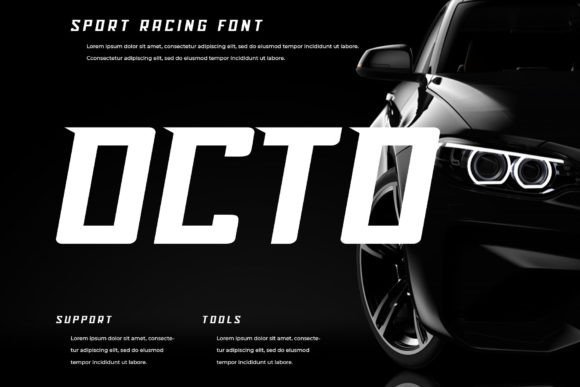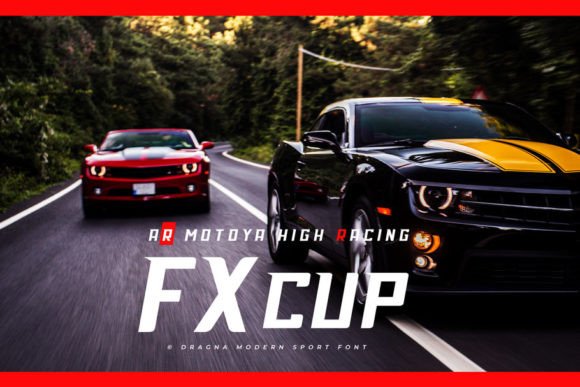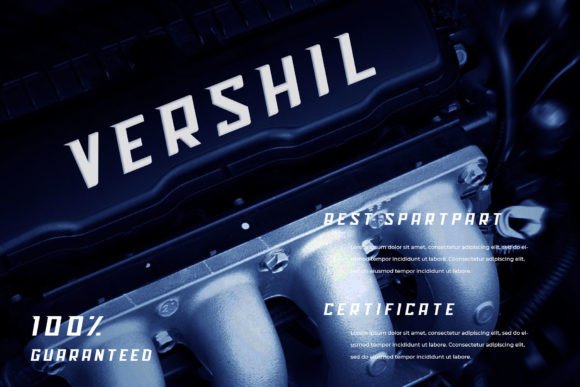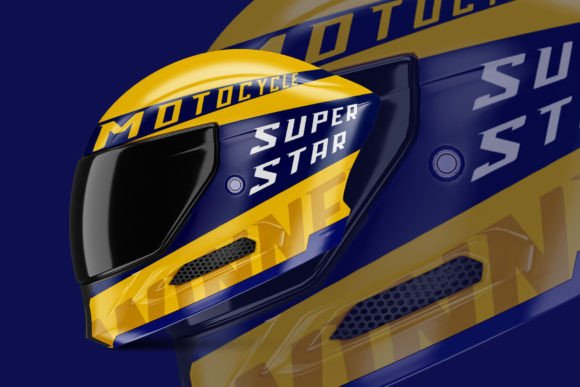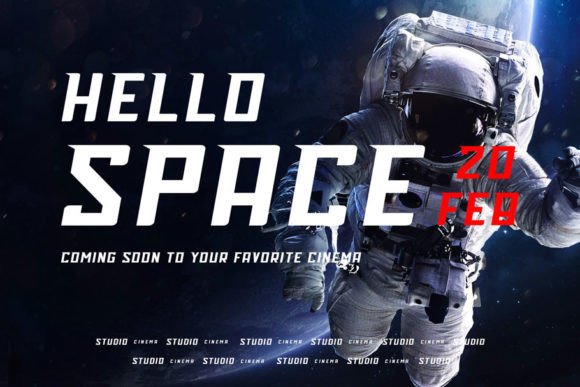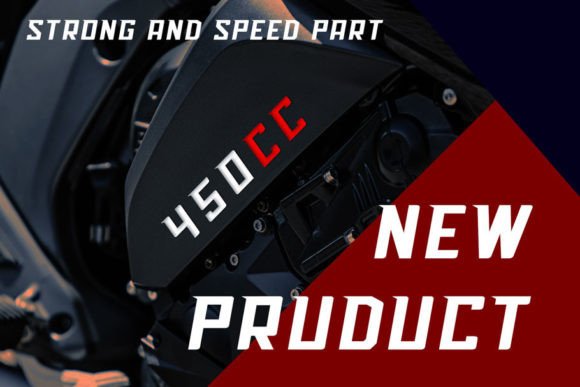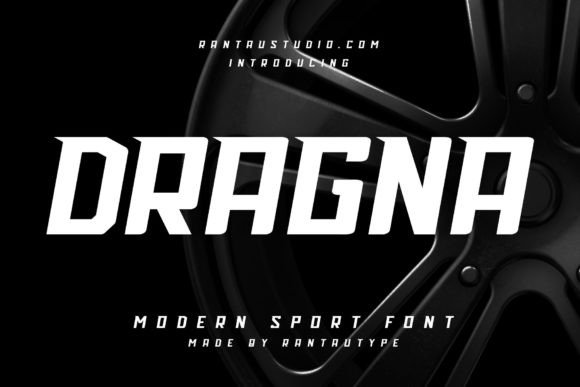
Introducing Dragna Font: Elevate Your Designs with a Sporty Twist
In the world of typography, fonts play a crucial role in conveying the tone and personality of a design. For designers and crafters looking to add a sporty edge to their work, the Dragna Font is an excellent choice. This sport slab serif font is designed to make a statement, with its unique blend of modern letter cutouts, dynamic slant, and italic wide letters.
What is Dragna Font?
Dragna is a sport slab serif font that exudes energy and dynamism. Its modern design makes it perfect for a variety of applications, including sports headlines, automotive logos and monograms, and other dynamic text options. The font’s unique features, such as its italic wide letters and modern letter cutout, give it a distinctive look that sets it apart from other fonts.
Key Features of Dragna Font
• Sport Slab Serif Font: Dragna’s slab serif design gives it a sturdy, athletic feel that’s perfect for sports-related designs.
• Italic Wide Letters: The font’s italic letters are wide and expansive, making them ideal for headlines and titles that need to grab attention.
• Modern Letter Cutout: The modern letter cutout feature adds a touch of sophistication to the font, making it suitable for a wide range of design applications.
• Dynamic Slant: The font’s dynamic slant gives it a sense of movement and energy, making it perfect for designs that need to convey a sense of action and excitement.
Use Cases for Dragna Font
Dragna Font is an incredibly versatile font that can be used in a variety of design applications. Here are some use cases where Dragna excels:
• Sports Headlines: Dragna’s sporty design makes it perfect for sports headlines, whether it’s for a newspaper, magazine, or website.
• Automotive Logos and Monograms: The font’s modern design and dynamic slant make it an excellent choice for automotive logos and monograms.
• Dynamic Text Options: Dragna’s unique features make it suitable for a wide range of dynamic text options, including posters, flyers, and social media graphics.
Why Choose Dragna Font?
So why choose Dragna Font for your design projects? Here are just a few reasons:
• Unique Design: Dragna’s unique blend of modern letter cutouts, dynamic slant, and italic wide letters makes it a standout font that will elevate your designs.
• Versatility: The font’s versatility makes it suitable for a wide range of design applications, from sports headlines to automotive logos and monograms.
• High-Quality Design: Dragna Font is designed to a high standard, ensuring that your designs look professional and polished.
In conclusion, Dragna Font is an excellent choice for designers and crafters looking to add a sporty edge to their work. Its unique design, versatility, and high-quality construction make it perfect for a wide range of design applications. Whether you’re looking to create sports headlines, automotive logos and monograms, or dynamic text options, Dragna Font is here to take your work to a high level!